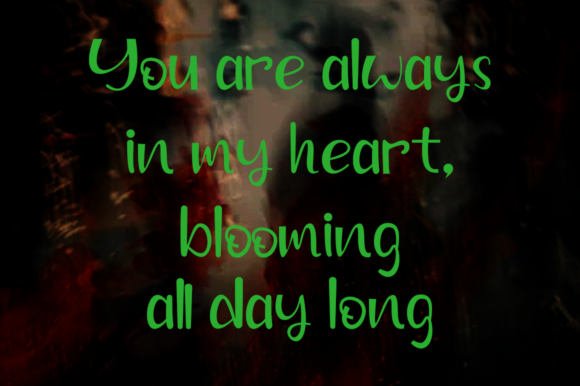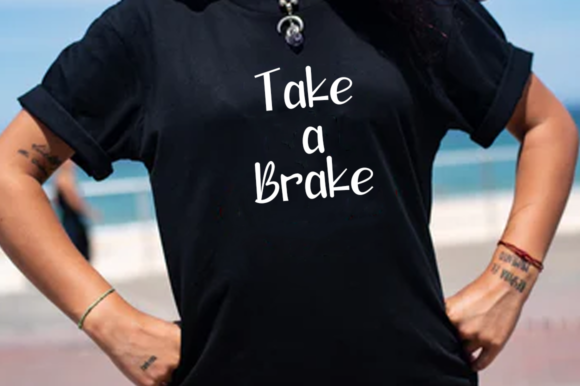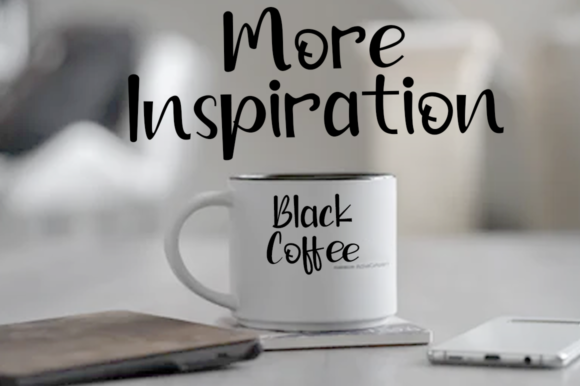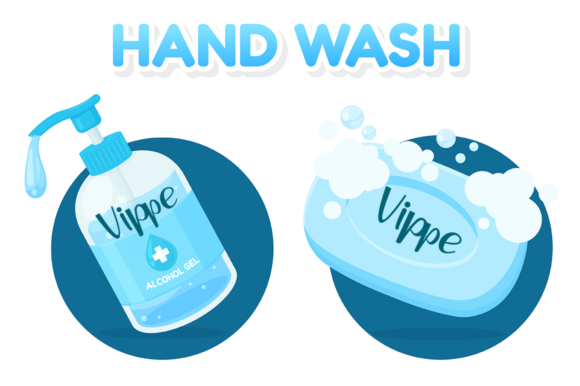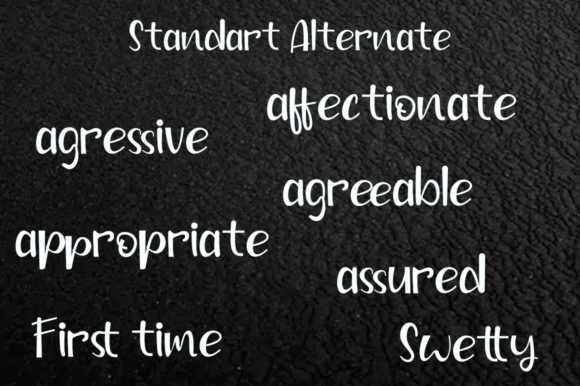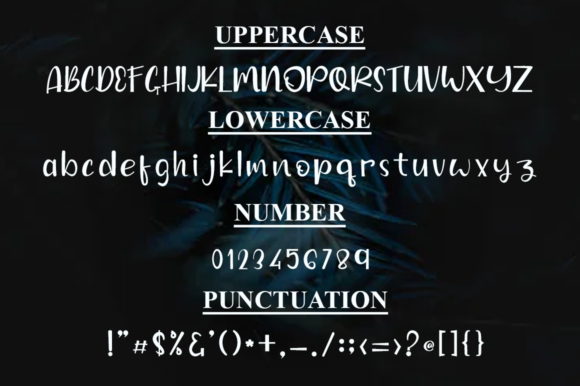
Frogen Font: The Ultimate Choice for Creative Projects
Are you a designer, crafter, or DIY enthusiast looking for a font that can add a touch of personality to your creative projects? Look no further than Frogen Font! This cool, relaxed, and whimsical handwritten font is perfect for anyone who wants to turn their ideas into a true piece of art.
What is Frogen Font?
Frogen Font is a unique and stylish handwritten font that is designed to bring a sense of fun and playfulness to your creative projects. Whether you’re looking for fonts for Instagram, calligraphy scripts for DIY projects, or simply want to add a personal touch to your designs, Frogen Font is the perfect choice.
Key Features of Frogen Font
- Cool and Relaxed: Frogen Font has a laid-back and casual vibe that’s perfect for creating designs that are relaxed and effortless.
- Whimsical: This font has a playful and imaginative feel that’s perfect for adding a touch of personality to your designs.
- Handwritten: Frogen Font is a handwritten font that has a personal and human touch, making it perfect for creating unique and authentic designs.
- Versatile: This font can be used for a wide range of creative projects, from social media graphics to DIY crafts.
Uses for Frogen Font
Frogen Font is a versatile font that can be used for a wide range of creative projects, including:
- Instagram Fonts: Use Frogen Font to create eye-catching Instagram posts and stories that stand out from the crowd.
- DIY Projects: Add a personal touch to your DIY projects, such as handmade cards, gift tags, and scrapbook pages.
- Calligraphy Scripts: Use Frogen Font as a calligraphy script for creating beautiful and elegant lettering.
- Graphic Design: Use Frogen Font in your graphic design projects, such as brochures, flyers, and posters.
Benefits of Using Frogen Font
There are many benefits to using Frogen Font in your creative projects, including:
- Unique and Authentic: Frogen Font is a unique and authentic font that will help your designs stand out from the crowd.
- Easy to Read: This font is easy to read and understand, making it perfect for creating designs that are clear and concise.
- Customizable: Frogen Font can be customized to fit your needs, allowing you to adjust the size, color, and style to suit your design.
Tips for Using Frogen Font
Here are some tips for using Frogen Font in your creative projects:
- Experiment with Different Sizes: Try using Frogen Font in different sizes to create visual interest and hierarchy in your designs.
- Play with Color: Use Frogen Font in different colors to add a pop of personality to your designs.
- Mix and Match: Combine Frogen Font with other fonts and graphics to create unique and interesting designs.
Frogen Font is a cool, relaxed, and whimsical handwritten font that’s perfect for designers, crafters, and DIY enthusiasts. With its unique and authentic style, Frogen Font is sure to turn any creative idea into a true piece of art. Whether you’re looking for fonts for Instagram, calligraphy scripts for DIY projects, or simply want to add a personal touch to your designs, Frogen Font is the ultimate choice.